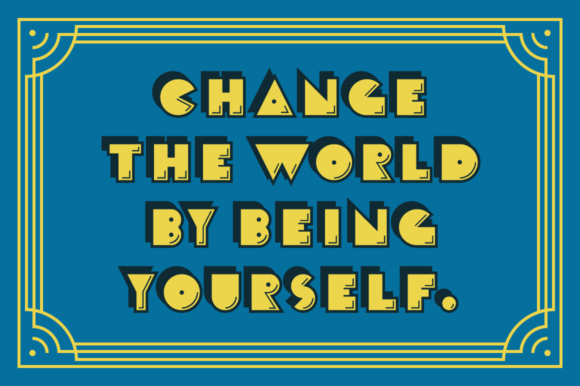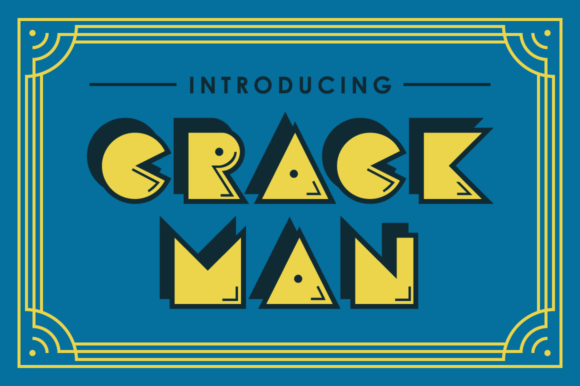
Crack Man
About Crack Man Font
Crack Man is a fun, retro-nostalgic decorative layered font. This font can be used for a wide range of eclectic projects, and is a free font from Typodermic.